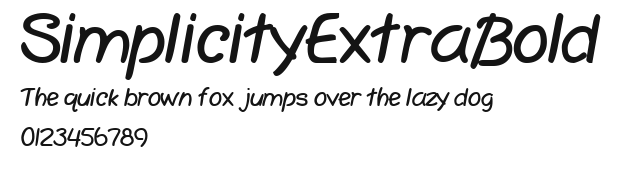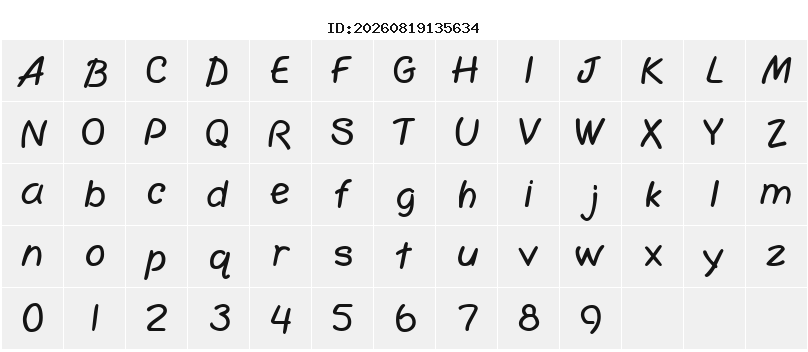
SimplicityExtraBold Preview
• Font Name: SimplicityExtraBold
• Font ID: SWFTE:SimplicityExtraBold Regular
• Full Font Name: SimplicityExtraBold
• Version: Rev. 003.000
• PostScript Name: SimplicityExtraBoldRegularSWFTE
• Character Count: 101
About SimplicityExtraBold.ttf
SimplicityExtraBold.ttf is a modern, elegant sans-serif font designed for ultimate readability and visual harmony. Perfect for branding, headlines, web design, and print materials.